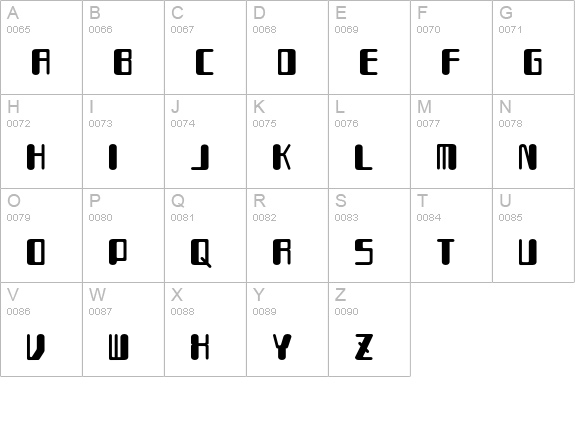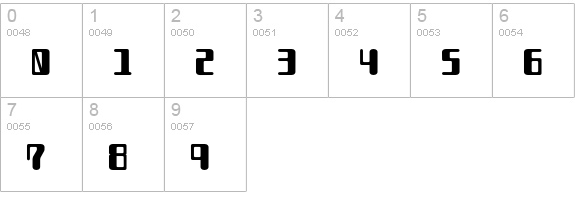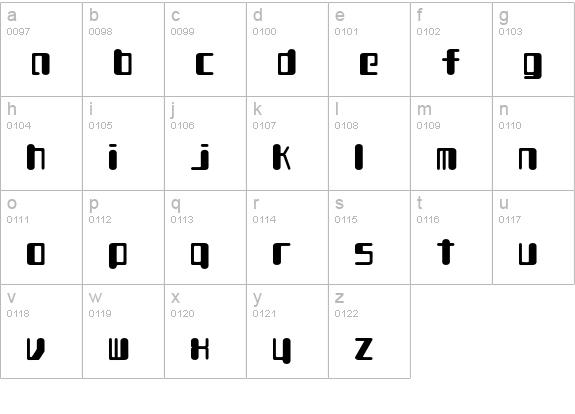
TYPEOUT2097ALP-Regular Font Details
TYPEOUT2097ALP-Regular is the standard, neutral variant in the TYPEOUT2097ALP typeface family \xE2\x80\x94 well suited to general body text, paragraphs, and standard typographic work.
Introducing TYPEOUT2097ALP-Regular, an extraordinary font that combines modern aesthetics with a touch of classic elegance. Designed with meticulous attention to detail, this font is perfect for adding a unique and sophisticated touch to any project. With its clean lines and balanced proportions, TYPEOUT2097ALP-Regular exudes a sense of professionalism and versatility. Whether you're designing a logo, creating eye-catching headlines, or crafting a captivating poster, this font is sure to make a lasting impression. What sets TYPEOUT2097ALP-Regular apart is its ability to effortlessly adapt to various design styles and contexts. Its timeless appeal makes it suitable for both digital and print applications, ensuring that your message is conveyed with utmost clarity and impact. The best part? TYPEOUT2097ALP-Regular is available for free! You can easily download this font from FontsMarket.com, a reputable platform that offers a wide range of high-quality fonts. Don't miss out on this incredible opportunity to enhance your design projects with a font that not only stands out but also comes at no cost to you. So go ahead, unleash your creativity and elevate your designs with TYPEOUT2097ALP-Regular. Its tasteful elegance and free availability make it the perfect choice for designers, artists, and anyone seeking to make a statement with their typography. Download it today and experience the power of this remarkable font firsthand.